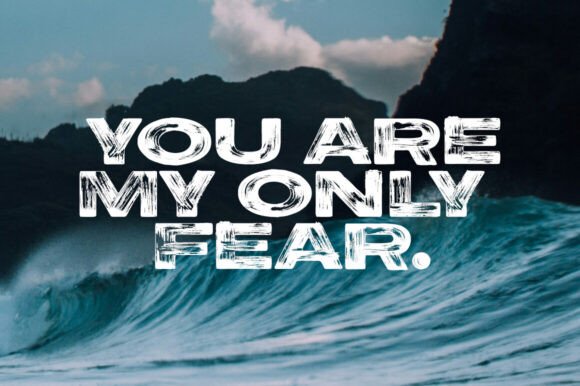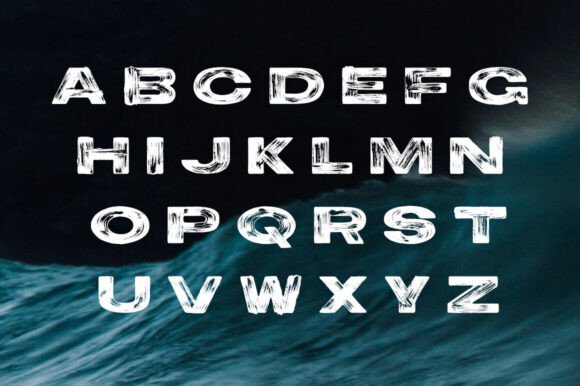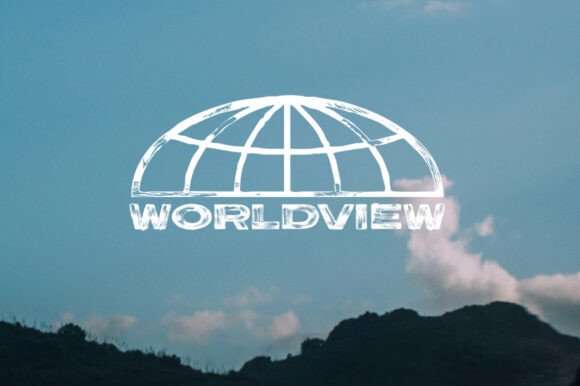
Introduction to Ocean Grade Font
Have you ever stared at a stunning underwater scene, mesmerized by the vibrant colors and textures of the ocean’s depths? As a designer, I’m sure you’ve experienced that same feeling of wonder when discovering a high-quality design resource that elevates your creative project to the next level. For me, that moment arrived when I stumbled upon the Ocean Grade Font, a trendy and straightforward typeface that boasts its own acrylic texture.
With its transparent background and clean design, Ocean Grade Font is the perfect addition to any macro photograph or aesthetic poster. Whether you’re working on a free download or a paid design, this versatile font is sure to take your project to new heights. In this article, we’ll dive deeper into the features and benefits of Ocean Grade Font, and explore why it’s become a valuable asset for designers looking to create stunning visuals.
Key Features of Ocean Grade Font
- High-resolution design resource with a transparent background, perfect for creative projects
- Features a unique, ocean-inspired design that adds a touch of sophistication to any creative project
- Designed to be highly legible, even at small sizes, making it ideal for use in various applications, from branding to publishing
Honest Review: Ocean Grade Font
I recently stumbled upon the Ocean Grade Font, and I must say it’s a gem for designers looking for a high-quality font to elevate their creative projects. The font offers a clean and modern aesthetic, making it perfect for a variety of design tasks.
- ✨ High quality design that looks great on both light and dark backgrounds
- ✨ Transparent background, allowing for seamless integration with any design element
- ✨ Excellent for use in logos, branding materials, and other design assets
- ⚠️ Limited character set, which may not be suitable for longer text blocks
- ⚠️ May not be as versatile as some other fonts in terms of font sizes and styles
Overall, I’m impressed with the Ocean Grade Font and would recommend it to designers looking for a reliable design resource. While it may have some limitations, its high quality and modern aesthetic make it a great addition to any design project.
The Ocean Grade Font is a high-quality design resource ideal for creative projects that require a unique and stylish touch. With its transparent background and sleek design, it’s perfect for adding a professional look to your work.
The Ocean Grade Font is suitable for a variety of projects, including:
- Business cards and letterheads.
- Posters and flyers.
- Brochures and catalogs.